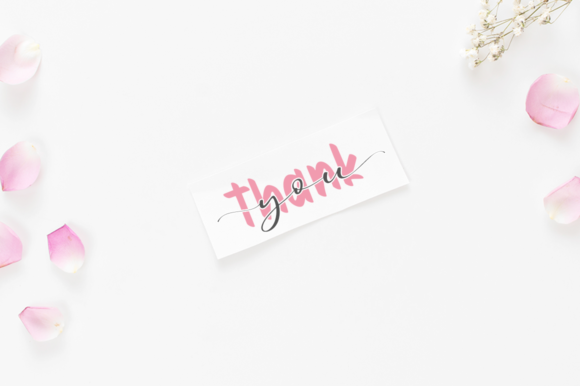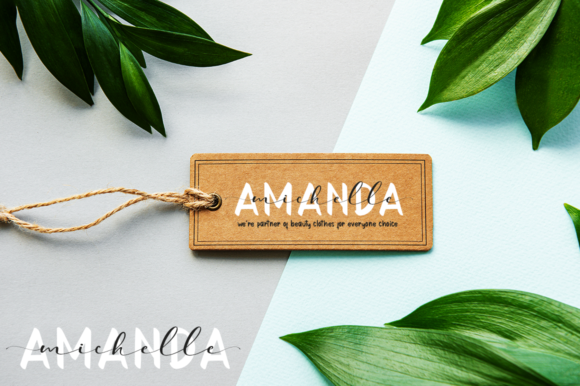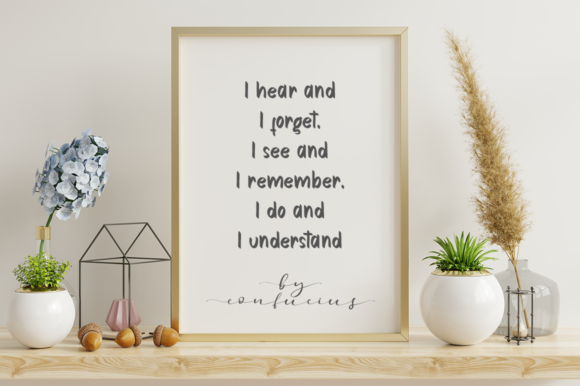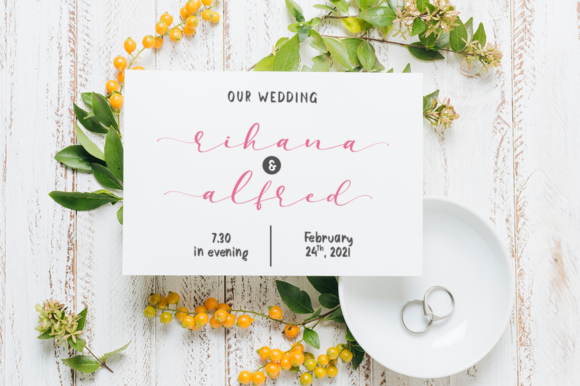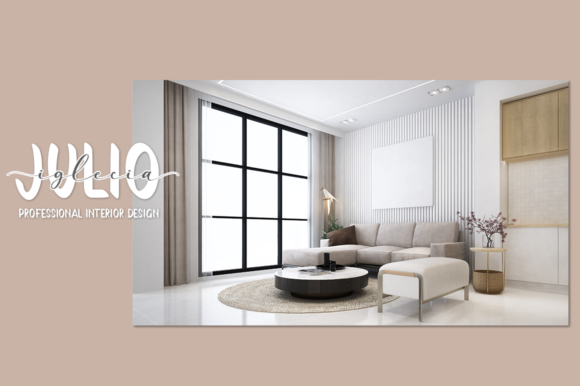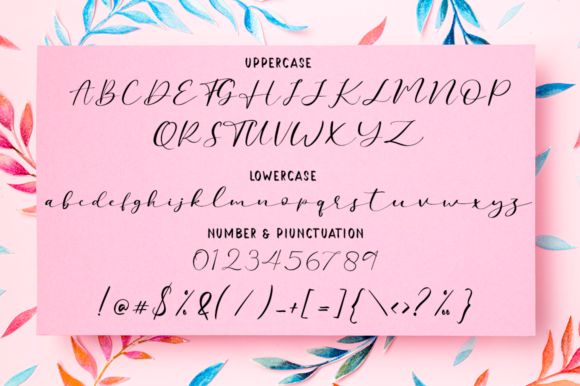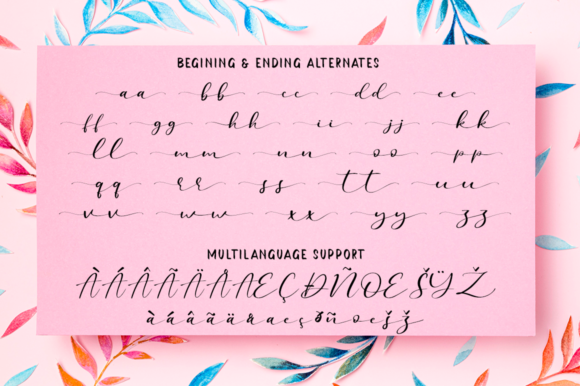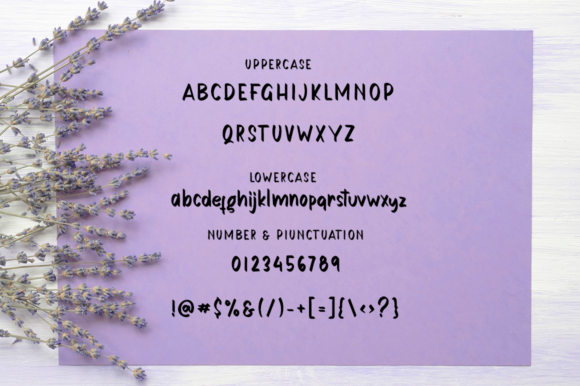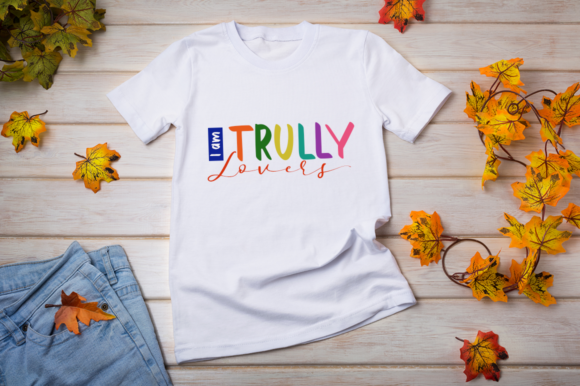
Darling Font
About Darling Font
Darling is an incredibly versatile duo font (script and sans). This font fits a wide pool of designs, elevating them to the highest levels. Add this font to your favorite creative ideas and notice how it makes them come alive!